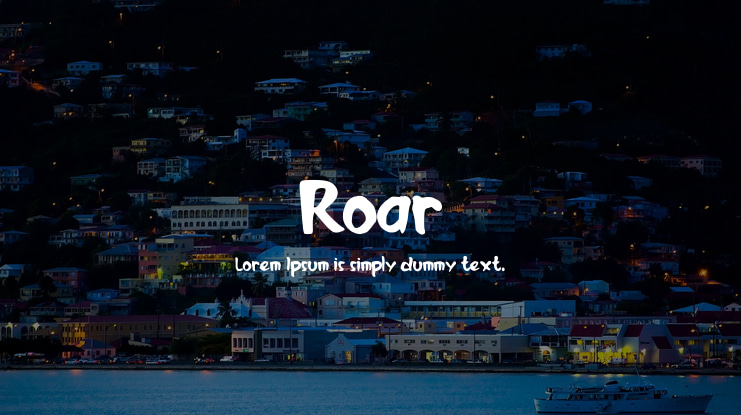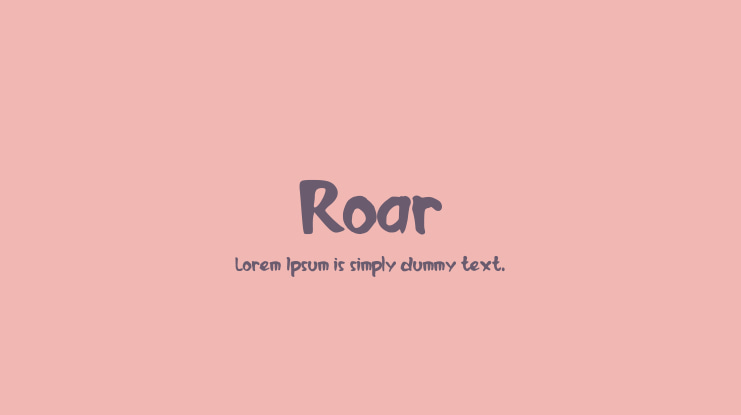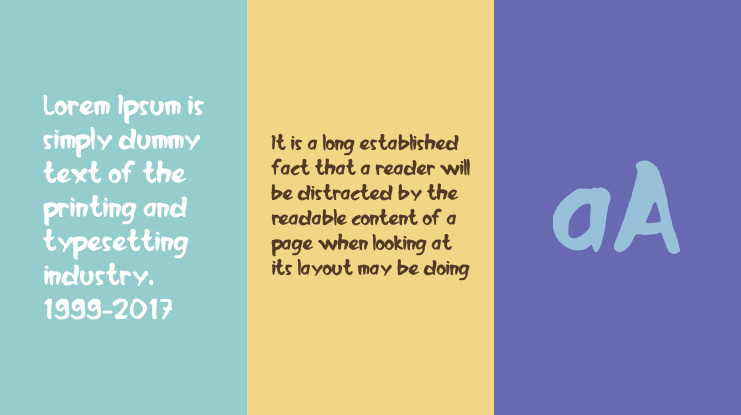
Roar Font
Roar Bold is a casual, yet strong display font that will put a bold and unique twist on any design project. Get inspired by its unique charm.